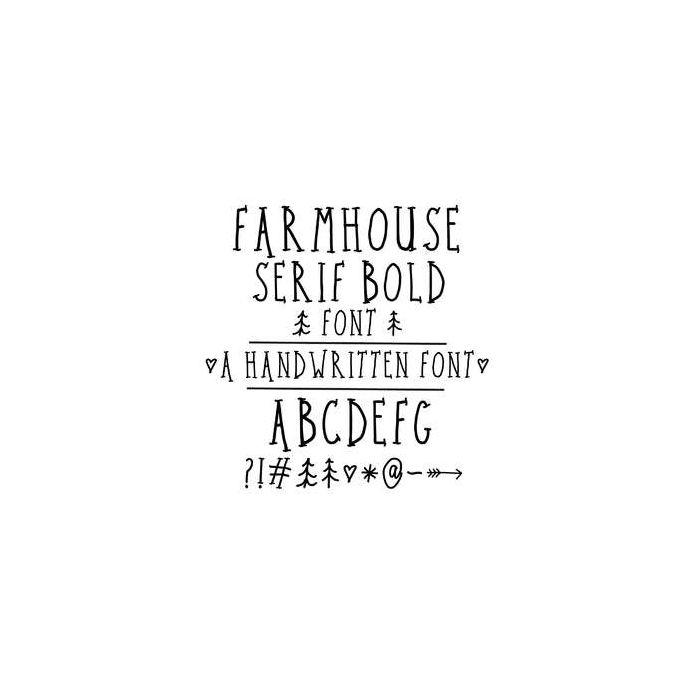
Farmhouse Serif Bold Hand Written Font. The follow up to my popular Farmhouse Font, the rest of the Farmhouse font series is also available here in the Silhouette store! My other fonts can be found in the Silhouette store.